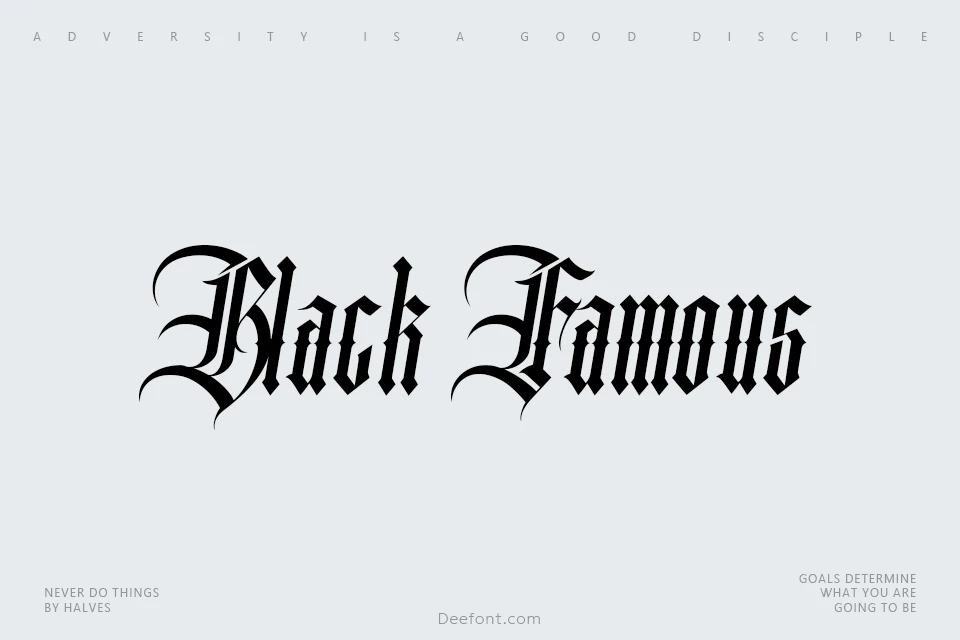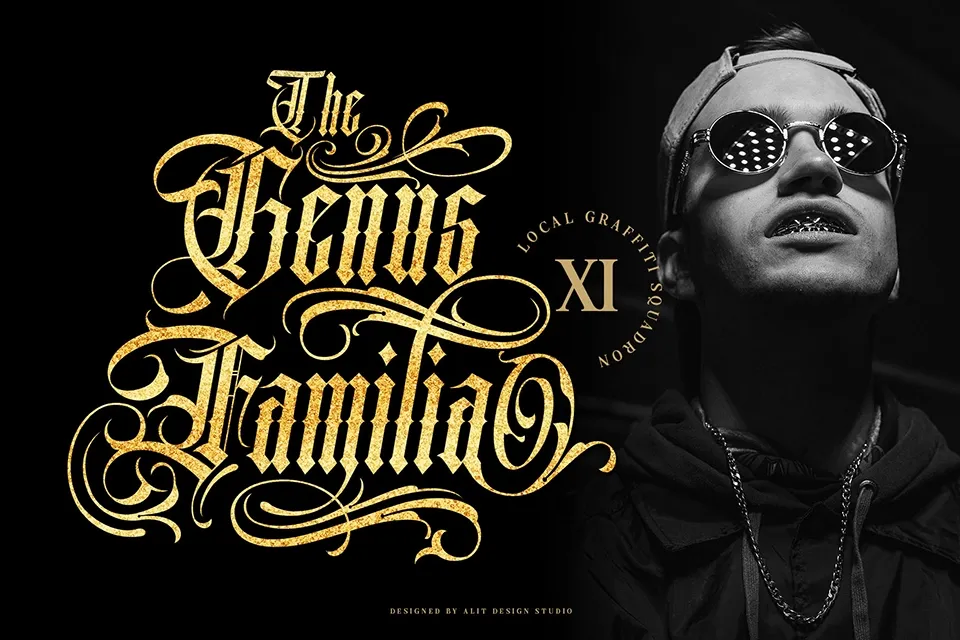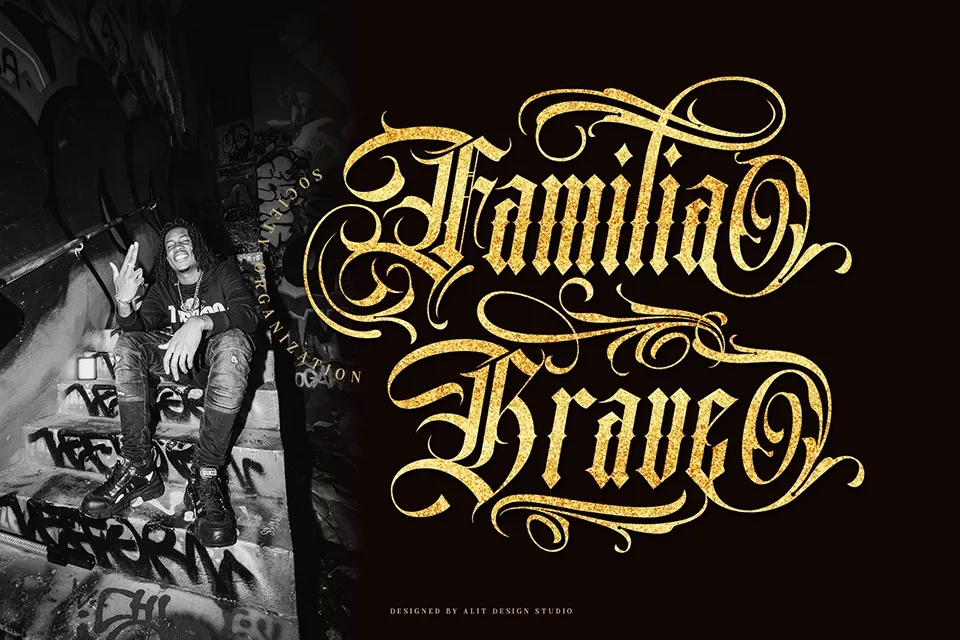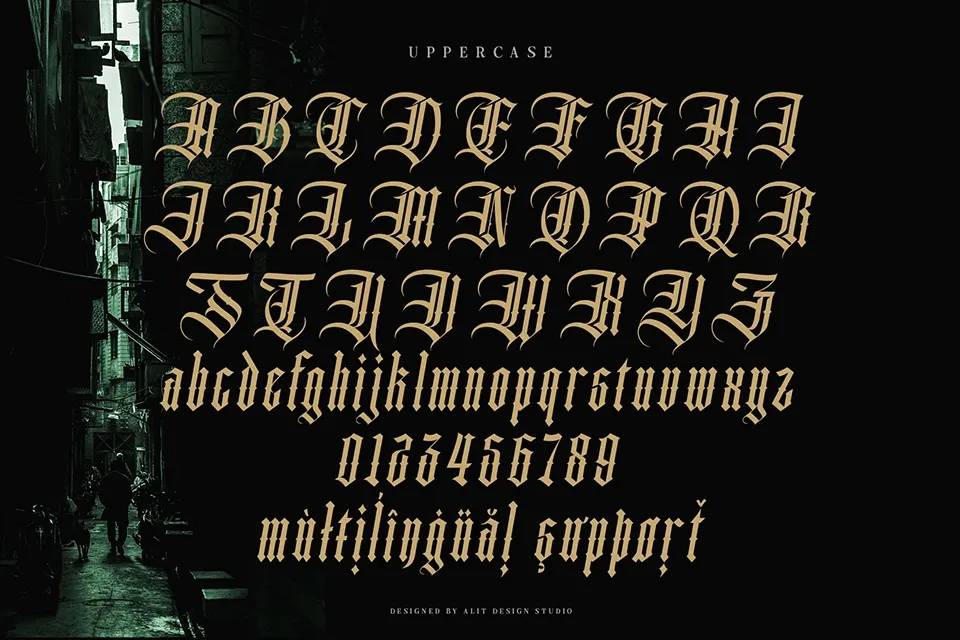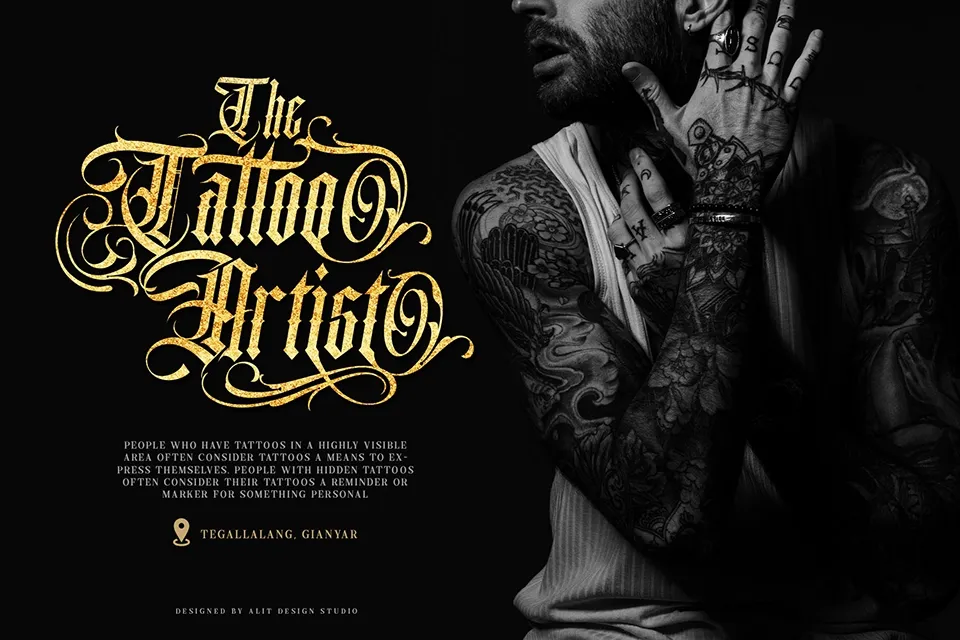
Black Famous Font
Black Famous Font is a bold and ornate blackletter typeface that exudes a sense of power and sophistication. With its intricate flourishes and dramatic Gothic-inspired design, this font is perfect for creating impactful visuals in branding, logos, posters, apparel, and signage. Its sharp angles and artistic curves give it a distinctive personality, making it ideal for projects that demand a strong and authoritative aesthetic. Black Famous Font combines traditional blackletter elements with modern flair, ensuring versatility across various creative applications. Whether used for vintage themes or edgy designs, this font adds a striking and unforgettable touch to any composition.